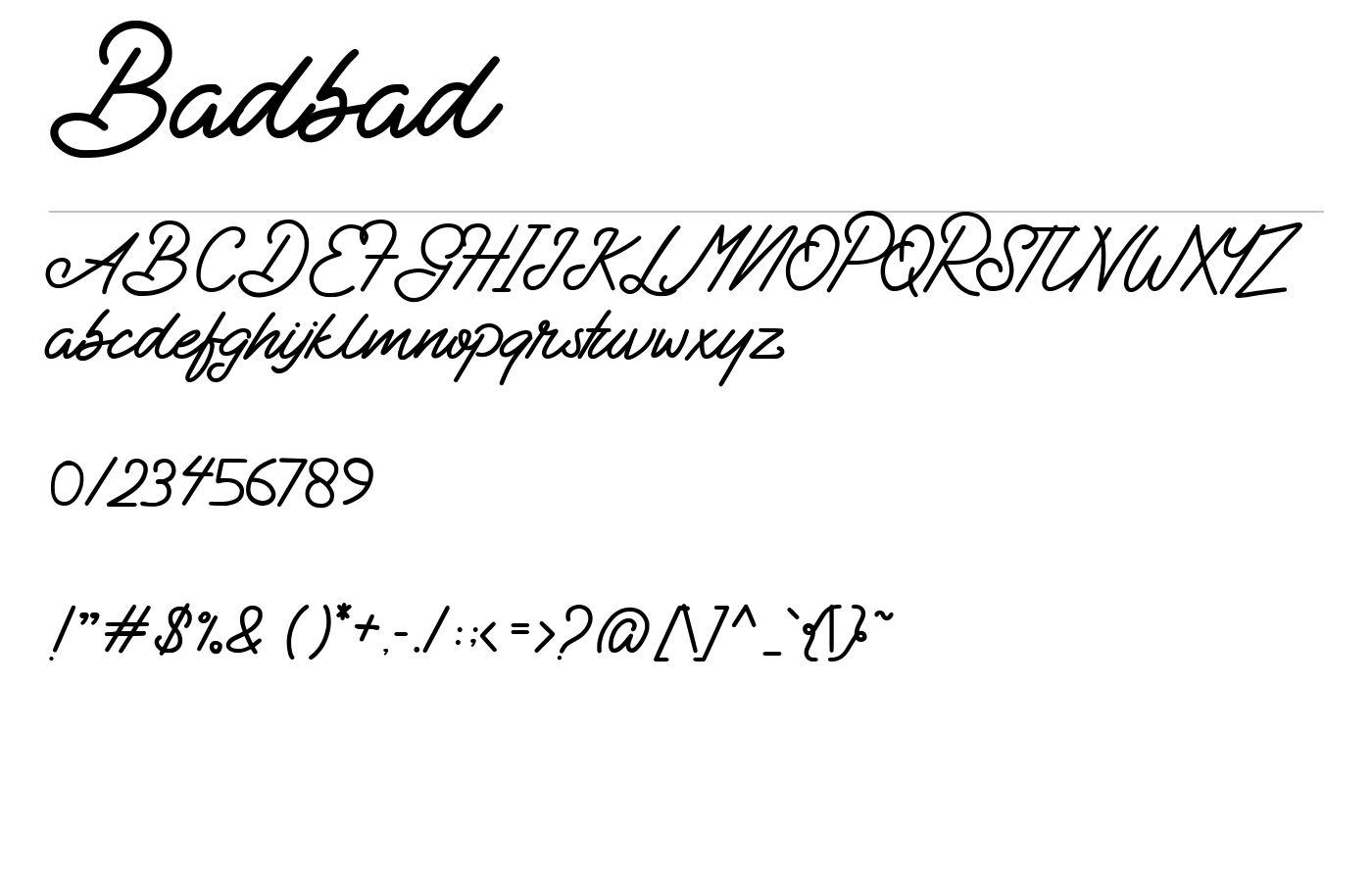
Badbad Font is a sleek, modern script typeface with a smooth, handwritten feel. Its medium weight and slightly condensed letterforms create an elegant yet approachable style that works well for branding, invitations, and stylish headlines. This font’s flowing cursive design adds a personal, refined touch, making it ideal for creative projects that need a warm and sophisticated character.
Badbad Font
About Badbad Font